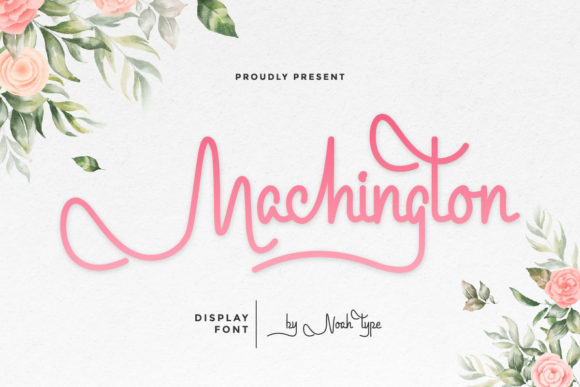
Introducing Machington Font, a delightful script font that captures the essence of elegance and sophistication. Its charming curves and delicate strokes dance across the page, adding a captivating touch to your creative projects. Prepare to be swept away by its timeless beauty and see your designs transformed into works of art.
Immerse yourself in the world of Machington Font, where letters flow effortlessly, connecting with an ethereal grace. It's a font that speaks to the heart, evoking emotions and leaving a lasting impression on your audience. Let your words take flight with Machington Font, and watch as they dance across the screen, captivating and enchanting all who lay their eyes upon them.
Crafted with meticulous attention to detail, Machington Font boasts a comprehensive collection of glyphs and ligatures, granting you endless possibilities for customization. Unleash your creativity and explore a myriad of styles, from classic to contemporary, elegant to playful. The possibilities are boundless with Machington Font, your trusty companion in the realm of visual enchantment.
But Machington Font is more than just a font; it's an experience. It transports you to a bygone era of romance and intrigue, where words held power and beauty reigned supreme. With every stroke of the keyboard, you'll feel the magic of Machington Font come alive, igniting your imagination and inspiring you to create captivating content that resonates with your audience.
So, dear seeker of beauty and distinction, embrace Machington Font and embark on a creative journey like no other. Let your designs blossom with elegance, let your words captivate hearts, and let Machington Font be your muse, guiding you towards greatness. Make a statement, leave an indelible mark, and watch as your creations captivate and inspire the world.